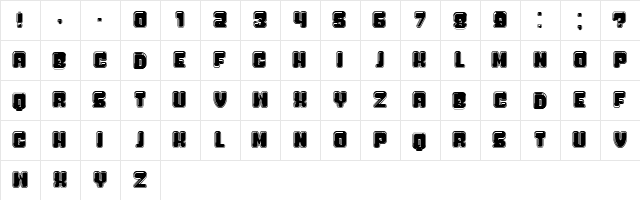
Bubblicious College Regular
Design Context for Bubblicious College Typeface
Bubblicious College has the bold swagger of sports branding: strong, assertive letterforms designed to dominate headlines and jerseys alike.
A natural choice for gym brands, fantasy sports, jersey lettering, and action-driven headlines.
Pro Tip: Use Bubblicious College in all-caps headlines where its athletic energy can fully express itself. Pair with a solid, simple sans for supporting text.